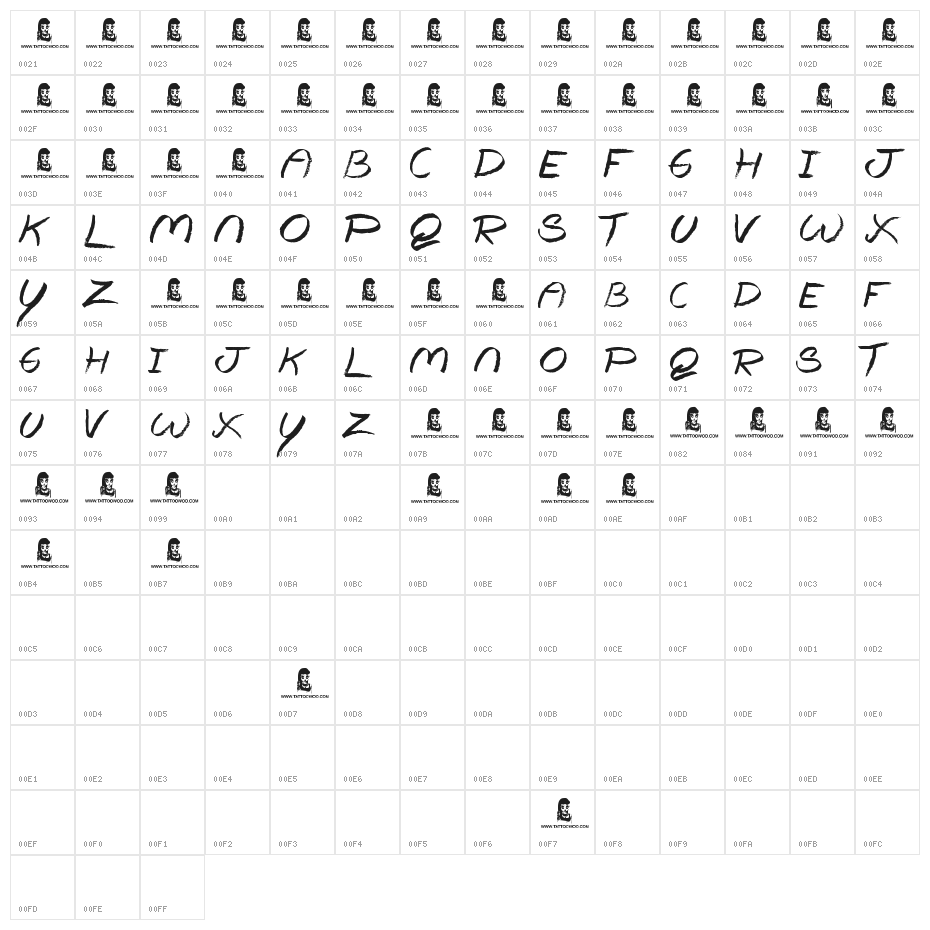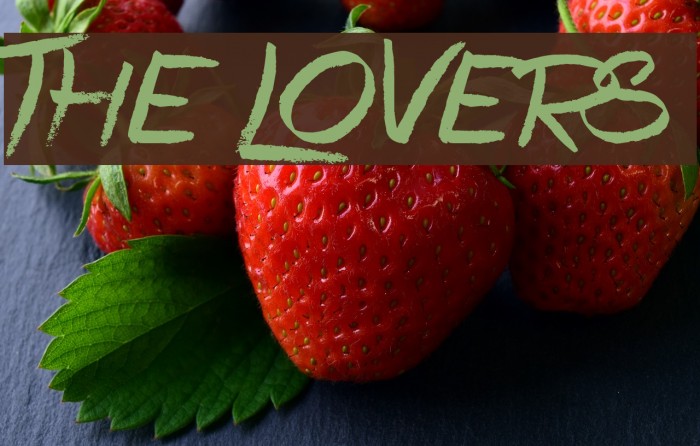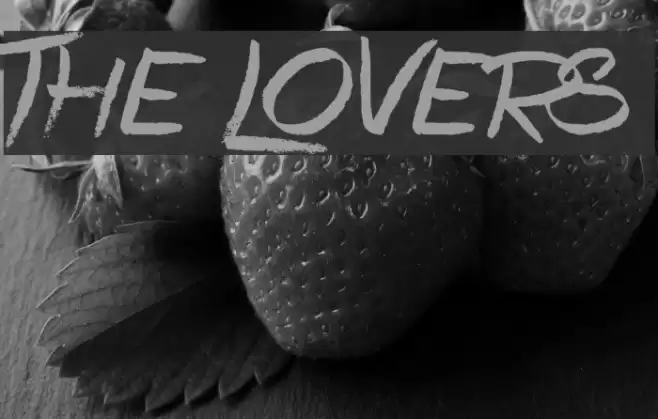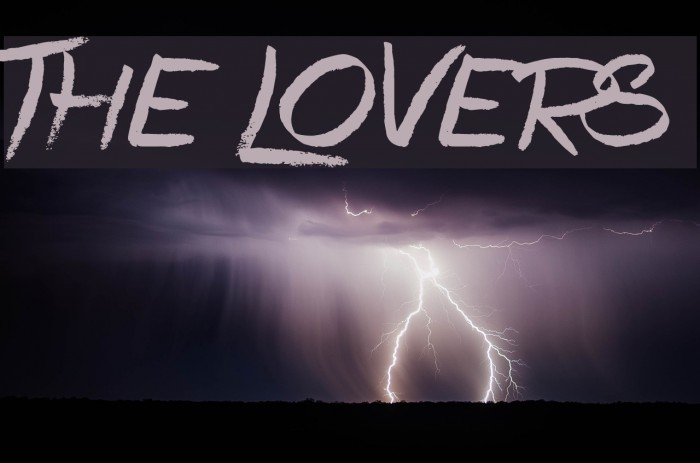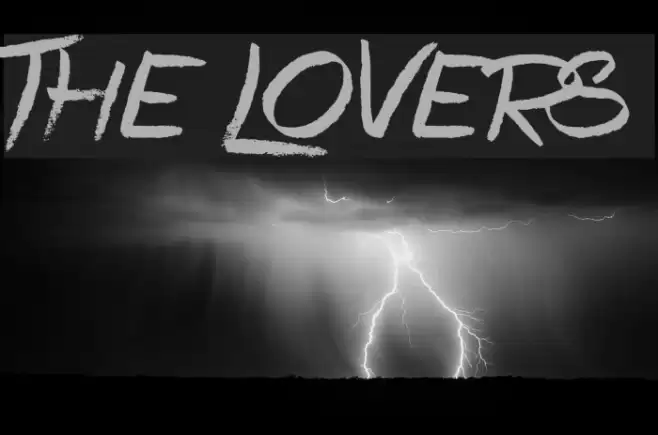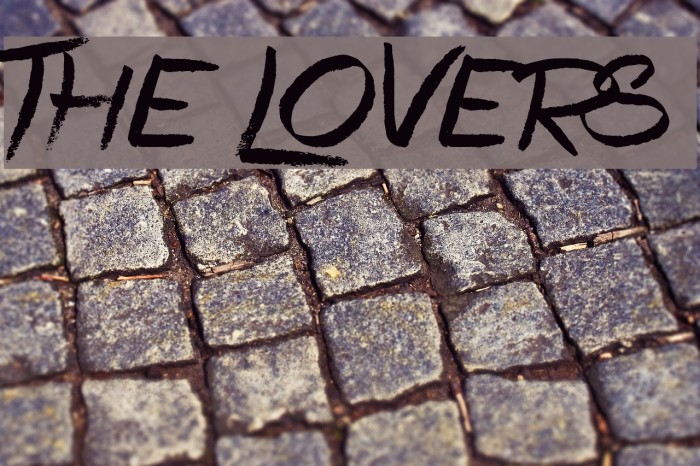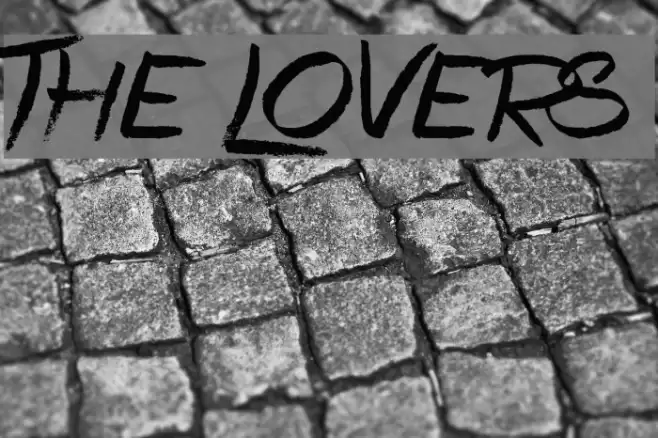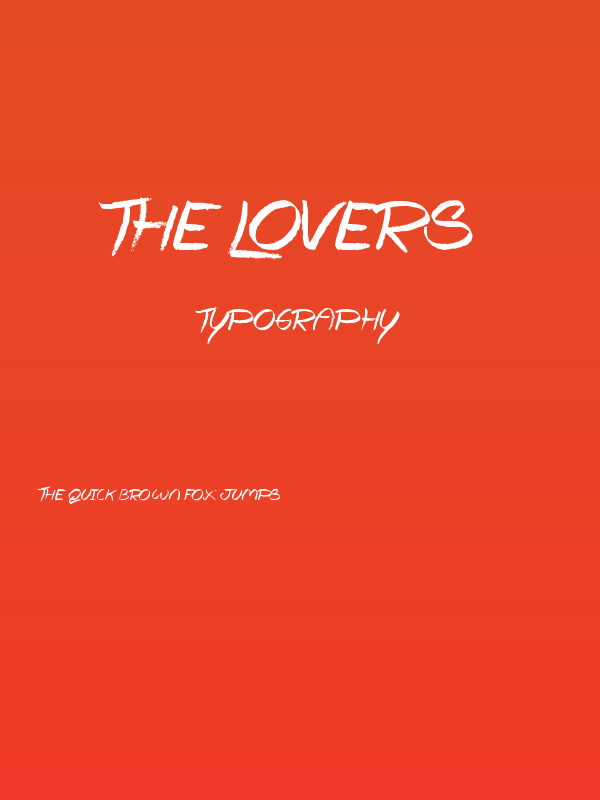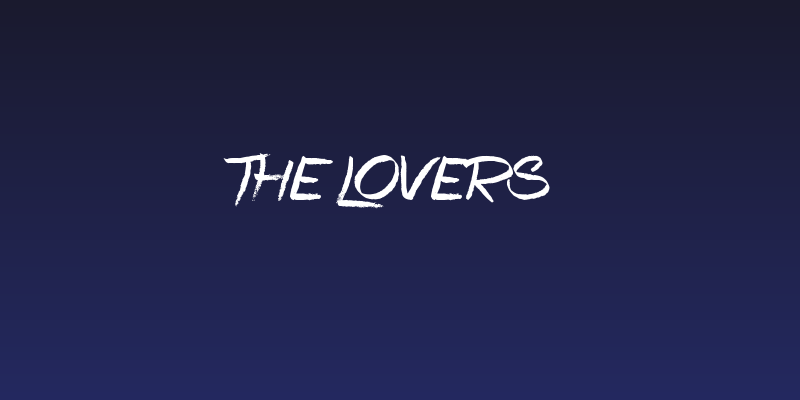
The Lovers Font
The Lovers Description
This font features a bold and expressive brush script style, characterized by its dynamic and energetic strokes. The letters have a hand-painted appearance, with varying thicknesses that create a sense of movement and fluidity. The uppercase and lowercase letters maintain a consistent style, with some letters featuring unique flourishes and curves that add to the font's artistic appeal. The overall design is both edgy and elegant, making it suitable for projects that require a touch of creativity and individuality.
| Proposed Projects | Ideal for branding, posters, album covers, and creative design projects that require a bold, artistic touch. |